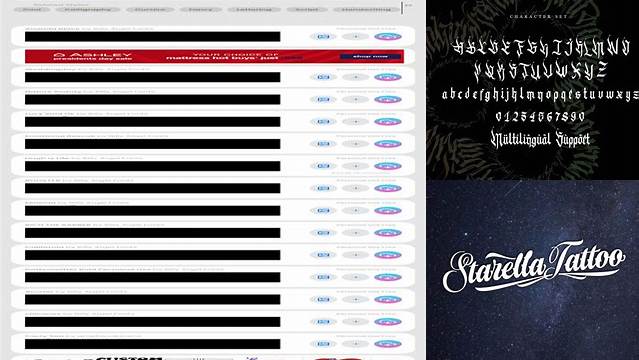
100 Free Tattoo Fonts & Generator On FontSpace
Hey guys! Ever wondered about the perfect font for your next tattoo? Choosing the right font is crucial because it's going to be on your skin forever! A killer font can make or break a tattoo, so you've gotta pick something that not only looks awesome but also reflects your personality and style. In this article, we're diving deep into the world of tattoo fonts, exploring where you can find a ton of them for free and even use generators to create something unique. We'll be focusing on FontSpace, which is like a treasure trove of fonts, and how you can leverage it to find the perfect lettering for your body art. So, buckle up and let's get inking... digitally, for now!
Why Font Choice Matters for Tattoos
So, why is font choice so important for tattoos? Well, think of it this way: a tattoo is a permanent piece of art. The font is the artist's handwriting, and just like a signature, it needs to be legible and aesthetically pleasing. Font choice significantly impacts the overall look and feel of your tattoo. A delicate script font might be perfect for a heartfelt quote, while a bold, gothic font might be better suited for a powerful statement. A poorly chosen font can make your tattoo look amateurish or even illegible over time, especially as the ink spreads slightly under the skin. Imagine getting a beautifully written quote in a font that's so intricate it looks like a blurry mess after a few years – not cool, right? That's why spending time choosing the right font is super important. You need something that will stand the test of time, both in terms of style and legibility. Consider the meaning behind your tattoo as well. Does the font match the message you're trying to convey? A playful font might not be the best choice for a memorial tattoo, just like a serious, formal font might not work for a whimsical design. Think about the size and placement of your tattoo, too. A tiny, detailed font might not work well on a small area, as the lines could blur together. Conversely, a huge, blocky font might overwhelm a delicate design. It’s all about balance and ensuring that the font complements the overall tattoo design.
The Psychology of Tattoo Fonts
Believe it or not, different fonts evoke different emotions and associations. This is where the psychology of fonts comes into play. Understanding font psychology can help you select a typeface that truly resonates with the meaning and intent behind your tattoo. For example, script fonts, with their flowing lines and elegant curves, often convey a sense of sophistication, grace, and femininity. They're a popular choice for tattoos that express love, devotion, or personal mottos. Think of calligraphy-style fonts – they're timeless and classic, adding a touch of elegance to any design. On the other hand, gothic fonts, with their sharp angles and bold strokes, tend to evoke a sense of mystery, power, and rebellion. They're often favored for tattoos with darker or more edgy themes. Imagine a quote from a favorite fantasy novel rendered in a striking gothic script – it instantly sets a mood and adds a layer of depth to the design. Block fonts, also known as sans-serif fonts, are clean, modern, and minimalistic. They convey a sense of strength, clarity, and straightforwardness. These fonts are a great choice for tattoos that need to be easily legible, such as names or dates. A simple, bold block font can make a powerful statement without being overly ornate. Then there are handwritten fonts, which mimic the look of actual handwriting. These fonts can add a personal and intimate touch to your tattoo, making it feel unique and authentic. They're perfect for memorial tattoos, quotes from loved ones, or anything that has a deeply personal meaning. Choosing a handwritten font can make your tattoo feel like a piece of your own story. The key takeaway here is that the font you choose speaks volumes. It's not just about how it looks, but also about the message it conveys. Take the time to explore different font styles and consider what they communicate. Your tattoo is a reflection of you, so choose a font that truly represents your personality and values.
Legibility and Longevity: Key Considerations
Beyond the aesthetic appeal and psychological impact, two crucial factors to consider when choosing a tattoo font are legibility and longevity. After all, you want your tattoo to look just as amazing years down the line as it does on day one. Legibility is paramount – if you can't read your tattoo, what's the point? Avoid fonts that are too intricate, delicate, or condensed, as these can become blurry and difficult to read as the ink spreads over time. Think about it: those tiny, swirling letters might look beautiful on paper, but they might turn into an indistinguishable mess on your skin after a few years. Choose fonts with clear, well-defined lines and adequate spacing between letters. This will ensure that your tattoo remains legible even as the ink settles. Bold fonts tend to hold up better over time than thin, delicate fonts. The thicker lines are less likely to fade or blur, maintaining the integrity of the design. Consider the size of your tattoo as well. Smaller tattoos require simpler fonts with fewer details, while larger tattoos can accommodate more intricate designs. It's a matter of scale – a complex font might look stunning on a large back piece, but it could be illegible on a small wrist tattoo. Longevity is another critical factor. The ink used in tattoos will naturally fade and spread over time, so it's essential to choose a font that will withstand these changes. As mentioned earlier, bold fonts tend to age better than thin fonts. Avoid fonts with extremely fine lines or tightly packed letters, as these are more likely to blur together. The placement of your tattoo also affects its longevity. Areas of the body that experience a lot of friction, such as the fingers or wrists, tend to fade faster than other areas. If you're getting a tattoo in one of these areas, choose a font that is simple and bold to minimize the risk of fading. Ultimately, choosing a tattoo font is a balancing act. You want something that looks beautiful and reflects your style, but you also need something that is legible and will last a lifetime. Take your time, do your research, and consult with your tattoo artist to make the best choice for your skin.
FontSpace: Your Go-To for Free Tattoo Fonts
Okay, so now you know why font choice matters, but where do you actually find these amazing tattoo fonts? That's where FontSpace comes in! FontSpace is a fantastic online resource that offers a massive library of fonts, and the best part? A huge chunk of them are completely free! It's like a playground for font lovers, with thousands of options to explore. FontSpace is a treasure trove for anyone looking for tattoo fonts. The site boasts a user-friendly interface, making it super easy to navigate and find exactly what you're looking for. You can browse fonts by category, style, or even specific keywords, which is incredibly helpful when you have a particular vibe in mind for your tattoo. Want a gothic font? Just type “gothic” into the search bar, and bam! You'll be presented with a plethora of options. Looking for something more elegant and script-like? Try searching for “calligraphy” or “script.” The possibilities are endless! One of the coolest features of FontSpace is the ability to preview your text in different fonts. You can type in the word, phrase, or quote you're planning to get tattooed and see how it looks in various typefaces. This is a game-changer because it allows you to visualize your tattoo before you even step into the tattoo parlor. No more guesswork! You can experiment with different fonts, sizes, and styles until you find the perfect match. FontSpace also provides information about the font license, which is essential to check before using any font for commercial purposes. While many fonts are free for personal use, some may require a license for commercial applications, such as using them in a tattoo design that you sell. Always double-check the license to ensure you're using the font legally. The site also has a vibrant community of designers and font enthusiasts. You can connect with other users, ask for recommendations, and even get feedback on your font choices. It's a great way to discover new fonts and get inspired. With its vast collection of free fonts, user-friendly interface, and helpful features, FontSpace is a must-visit for anyone on the hunt for the perfect tattoo font. It's a fantastic resource that can help you bring your tattoo vision to life.
Navigating FontSpace for the Perfect Tattoo Font
Alright, let's get down to the nitty-gritty and talk about how to actually navigate FontSpace to find your dream tattoo font. With such a massive library, it can feel a little overwhelming at first, but don't worry, I've got you covered! The first thing you'll want to do is head over to FontSpace and familiarize yourself with the layout. The search bar is your best friend here. As I mentioned earlier, you can use keywords to narrow down your search. Start by brainstorming the kind of vibe you're going for with your tattoo. Are you looking for something bold and edgy? Try searching for “gothic,” “blackletter,” or “stencil” fonts. Want something more elegant and flowing? Search for “script,” “calligraphy,” or “handwritten” fonts. If you have a specific style in mind, like vintage or futuristic, you can use those keywords as well. Once you've entered your search term, FontSpace will display a list of fonts that match your criteria. Take your time to browse through the results and see what catches your eye. Don't be afraid to scroll through several pages – there are tons of hidden gems waiting to be discovered! The preview text feature is your secret weapon for finding the perfect font. Type in the word, phrase, or quote you're planning to get tattooed into the preview text box. This will allow you to see how your text looks in each font, which is super helpful for visualizing your tattoo. Pay attention to the spacing between letters, the overall legibility, and the way the font interacts with the shape of your text. You can also adjust the size of the preview text to get a better sense of how the font will look on your skin. FontSpace also offers a handy filtering system that allows you to further refine your search. You can filter fonts by category (e.g., script, serif, sans-serif), style (e.g., bold, italic, condensed), and even license type (e.g., free for personal use, free for commercial use). This is a great way to narrow down your options if you have specific requirements or preferences. Another helpful tip is to check out the “Popular Fonts” and “New Fonts” sections on FontSpace. These sections showcase the most downloaded and recently added fonts, which can be a great source of inspiration. You might discover a trendy new font or find a classic typeface that you've never seen before. Don't forget to explore the font collections curated by other users. FontSpace allows users to create and share their own font collections, which can be a fantastic way to discover unique and interesting fonts. You might find a collection specifically dedicated to tattoo fonts or one that aligns with your personal style. With a little patience and a dash of creativity, you'll be able to navigate FontSpace like a pro and find the perfect tattoo font for your next masterpiece.
Tattoo Font Generators: Create Your Unique Style
Alright, so you've explored FontSpace and found some awesome fonts, but what if you're feeling extra creative and want something truly unique? That's where tattoo font generators come in! Tattoo font generators are online tools that allow you to create custom lettering styles, giving you the power to design a font that perfectly reflects your personality and vision. These generators typically offer a range of customization options, such as font style, size, spacing, and effects. You can experiment with different settings to create a font that is completely one-of-a-kind. One of the biggest advantages of using a tattoo font generator is the ability to personalize your design. You're not limited to pre-existing fonts; you can tweak and adjust every aspect of the lettering to your liking. Want a script font with a little extra flair? A gothic font with a modern twist? A block font with a unique texture? With a font generator, the possibilities are endless. Tattoo font generators are also a great way to visualize your tattoo before you get it inked. You can type in your chosen text, customize the font, and then download an image of the design. This allows you to see exactly how your tattoo will look on your skin, which can help you make informed decisions about the size, placement, and overall design. There are many different tattoo font generators available online, each with its own set of features and options. Some generators are simple and straightforward, while others offer more advanced customization tools. It's worth exploring a few different generators to find one that suits your needs and skill level. When using a tattoo font generator, it's important to keep legibility in mind. Just like with pre-existing fonts, you want to make sure that your custom font is clear and easy to read. Avoid creating fonts that are too intricate, delicate, or condensed, as these can become blurry and difficult to decipher over time. Choose a font style that is legible and will hold up well as the ink settles and fades. It's also a good idea to consult with your tattoo artist about your custom font design. They can provide valuable feedback on the legibility, longevity, and overall aesthetic of your font. They might also be able to suggest adjustments or modifications to ensure that your tattoo looks its best. Using a tattoo font generator is a fantastic way to unleash your creativity and create a truly unique tattoo design. Whether you're looking for a subtle tweak to an existing font or a completely original creation, a font generator can help you bring your vision to life.
How to Use a Tattoo Font Generator Effectively
So, you're ready to dive into the world of tattoo font generators? Awesome! These tools can be a ton of fun and a great way to create a personalized design. But to get the most out of them, it's helpful to know some tips and tricks. Using a tattoo font generator effectively is all about understanding the features and options available and using them to create a font that is both visually appealing and legible. The first step is to choose the right generator for your needs. There are many different font generators online, and they vary in terms of features, ease of use, and the types of fonts they can create. Some generators are specifically designed for creating tattoo fonts, while others are more general-purpose font design tools. Take some time to explore different generators and see which ones resonate with you. Once you've chosen a generator, familiarize yourself with the interface and the available customization options. Most generators will allow you to adjust the font style, size, spacing, and effects. Some generators also offer more advanced features, such as the ability to add flourishes, swashes, or other decorative elements. Start by typing in your chosen text into the generator. This will give you a baseline to work with. Then, begin experimenting with different font styles. Try out script fonts, gothic fonts, block fonts, and handwritten fonts to see which one best suits your vision. Pay attention to the overall vibe of each font and how it complements your text. Once you've chosen a font style, you can start adjusting the other parameters, such as the size, spacing, and effects. Experiment with different sizes to see how the font looks at various scales. Adjust the spacing between letters to improve legibility and create a visually balanced design. Add effects, such as shadows, outlines, or textures, to give your font a unique look. As you're customizing your font, it's important to keep legibility in mind. A beautiful font is no good if it's difficult to read. Choose a font style that is clear and well-defined, and avoid using excessive effects that could make the font blurry or cluttered. Preview your font in different sizes and from different distances to ensure that it remains legible. It's also a good idea to consult with your tattoo artist about your custom font design. They can provide valuable feedback on the legibility, longevity, and overall aesthetic of your font. They might also be able to suggest adjustments or modifications to ensure that your tattoo looks its best. Don't be afraid to experiment and try new things. Tattoo font generators are powerful tools that can help you create truly unique and personalized designs. Have fun with the process and let your creativity shine!
Tips for Choosing the Right Tattoo Font
Okay, guys, we've covered a lot of ground here, from why font choice matters to exploring FontSpace and using font generators. But let's wrap things up with some solid tips for choosing the right tattoo font for you. Choosing the right tattoo font is a big decision, so it's essential to take your time, do your research, and consider all the factors involved. First and foremost, think about the message you're trying to convey with your tattoo. What is the meaning behind your design, and what kind of vibe are you going for? If you're getting a quote about love or hope, a delicate script font might be a good choice. If you're getting a tattoo with a darker or more edgy theme, a gothic font might be more appropriate. If you're getting a tattoo of a name or date, a simple, legible block font might be the best option. Consider the size and placement of your tattoo. Smaller tattoos require simpler fonts with fewer details, while larger tattoos can accommodate more intricate designs. Think about how the font will look on the specific area of your body you're planning to get tattooed. Will the font be legible? Will it fit comfortably within the available space? Legibility is key! Avoid fonts that are too intricate, delicate, or condensed, as these can become blurry and difficult to read as the ink spreads over time. Choose fonts with clear, well-defined lines and adequate spacing between letters. Bold fonts tend to hold up better over time than thin, delicate fonts. Think about the longevity of your tattoo. The ink used in tattoos will naturally fade and spread over time, so it's essential to choose a font that will withstand these changes. As mentioned earlier, bold fonts tend to age better than thin fonts. Avoid fonts with extremely fine lines or tightly packed letters, as these are more likely to blur together. Explore FontSpace and other online resources for inspiration. There are thousands of fonts available online, so take your time to browse and see what catches your eye. Use the preview text feature on FontSpace to see how your chosen text looks in different fonts. Consider using a tattoo font generator to create a custom font. This is a great way to personalize your design and ensure that it's truly unique. Consult with your tattoo artist. They can provide valuable feedback on your font choices and suggest adjustments or modifications to ensure that your tattoo looks its best. They can also help you determine the best size and placement for your tattoo. Ultimately, the best tattoo font is the one that resonates with you and reflects your personality and style. Choose a font that you love and that you'll be happy to see on your skin for years to come.
Conclusion: Your Perfect Tattoo Font Awaits!
So, there you have it, guys! A deep dive into the world of tattoo fonts, from why they matter to where you can find them and how you can even create your own. Choosing the right font is a crucial step in the tattoo process, so I hope this article has given you the knowledge and confidence to make the perfect choice. Remember, your tattoo is a permanent piece of art, and the font is a vital element of that art. Take your time, explore your options, and don't be afraid to get creative! FontSpace is an amazing resource for finding free tattoo fonts, with its vast library and user-friendly interface. And tattoo font generators offer a fantastic way to create a truly unique design that reflects your personality and style. But most importantly, always prioritize legibility and longevity. Choose a font that will look just as amazing years down the line as it does on day one. And don't forget to consult with your tattoo artist – they're the experts and can provide invaluable guidance and advice. With a little research, creativity, and collaboration, you'll be able to find or create the perfect tattoo font for your next masterpiece. So, go forth and get inked... but do your font homework first! Your perfect tattoo font awaits!